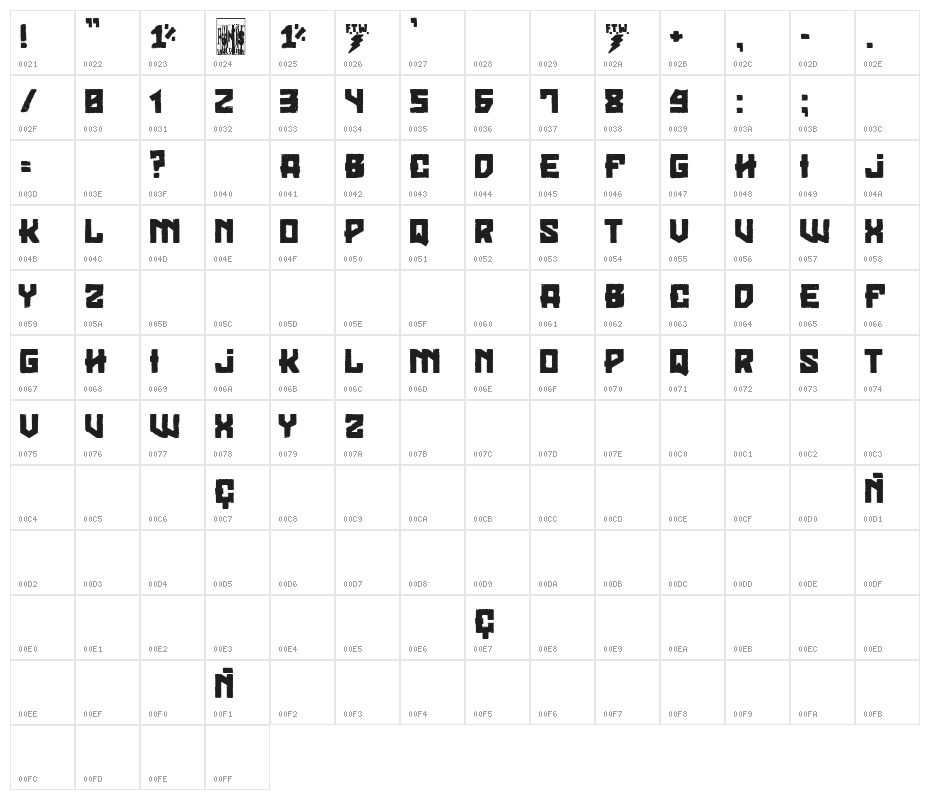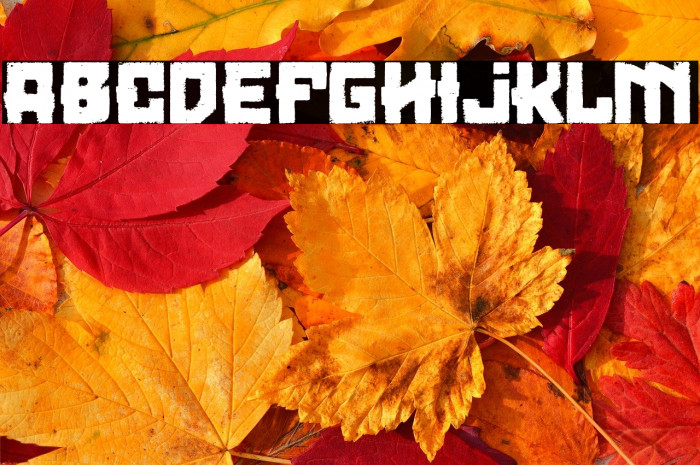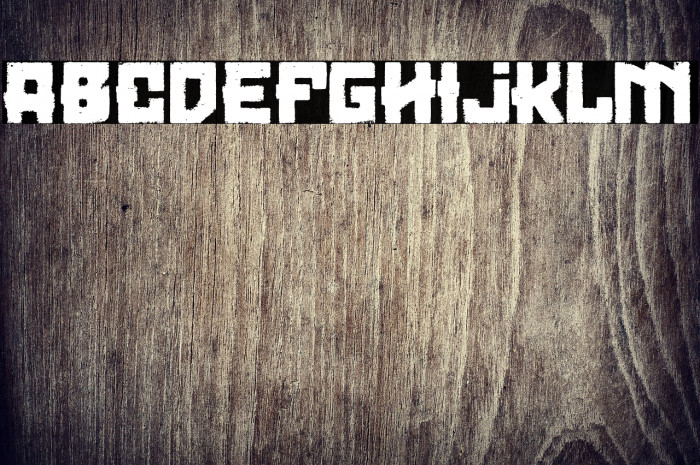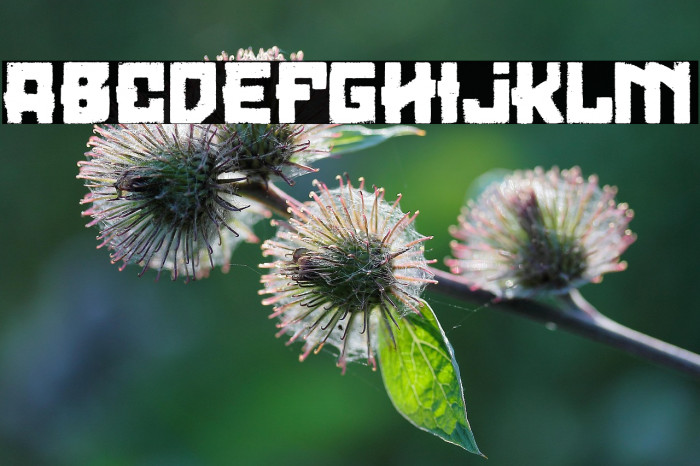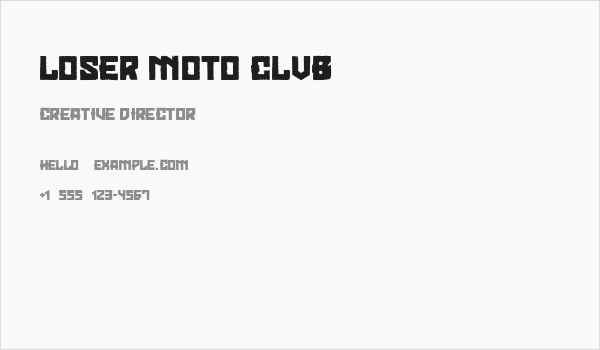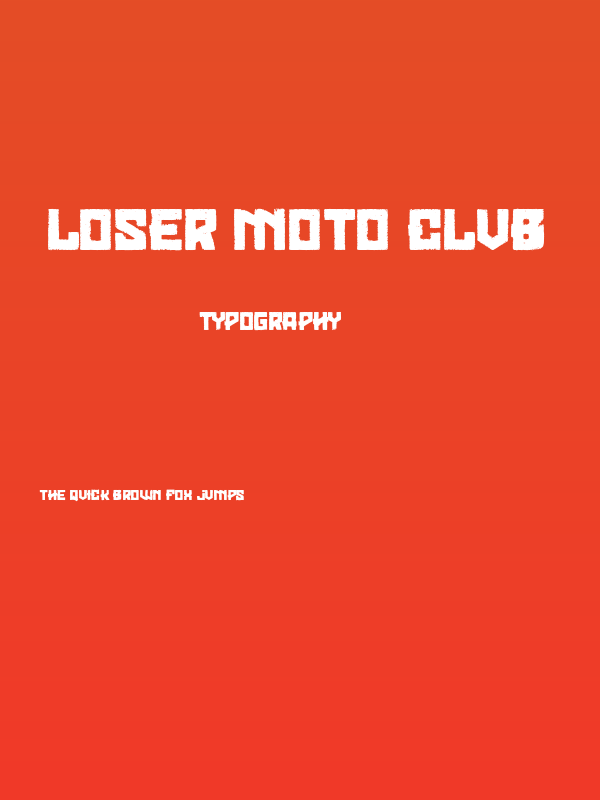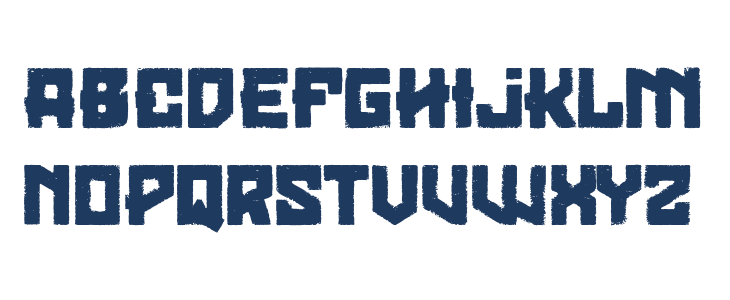
Loser Moto Club Font
Loser Moto Club Description
This font features a bold, rugged style with a distressed texture, giving it a gritty and rebellious look. The characters are blocky and angular, with a consistent thickness throughout. The uppercase and lowercase letters maintain a uniform style, while the numbers and special characters complement the overall aesthetic. The font's rough edges and bold presence make it ideal for projects that require a strong, impactful visual statement.
| Overall Style | Rugged, Rebellious, Bold |
| Use Case | Logos, Posters, Album Covers |
| Proposed Projects | Ideal for motorcycle club branding, edgy posters, rock band album covers, and any design needing a bold, gritty aesthetic. |